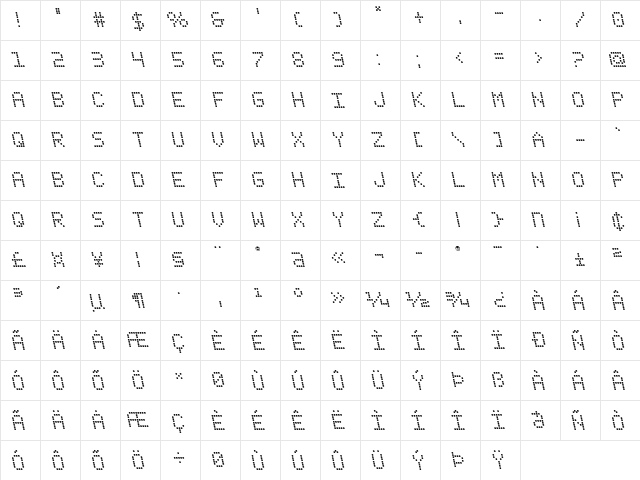
Fanfare Ticker Leftalic Italic
Design Context for Fanfare Ticker Leftalic Typeface
Fanfare Ticker Leftalic takes a measured approach to typography — its balanced proportions and neutral character make it a reliable workhorse for both digital and print work. Its italic angle brings a sense of urgency and motion to the letterforms.